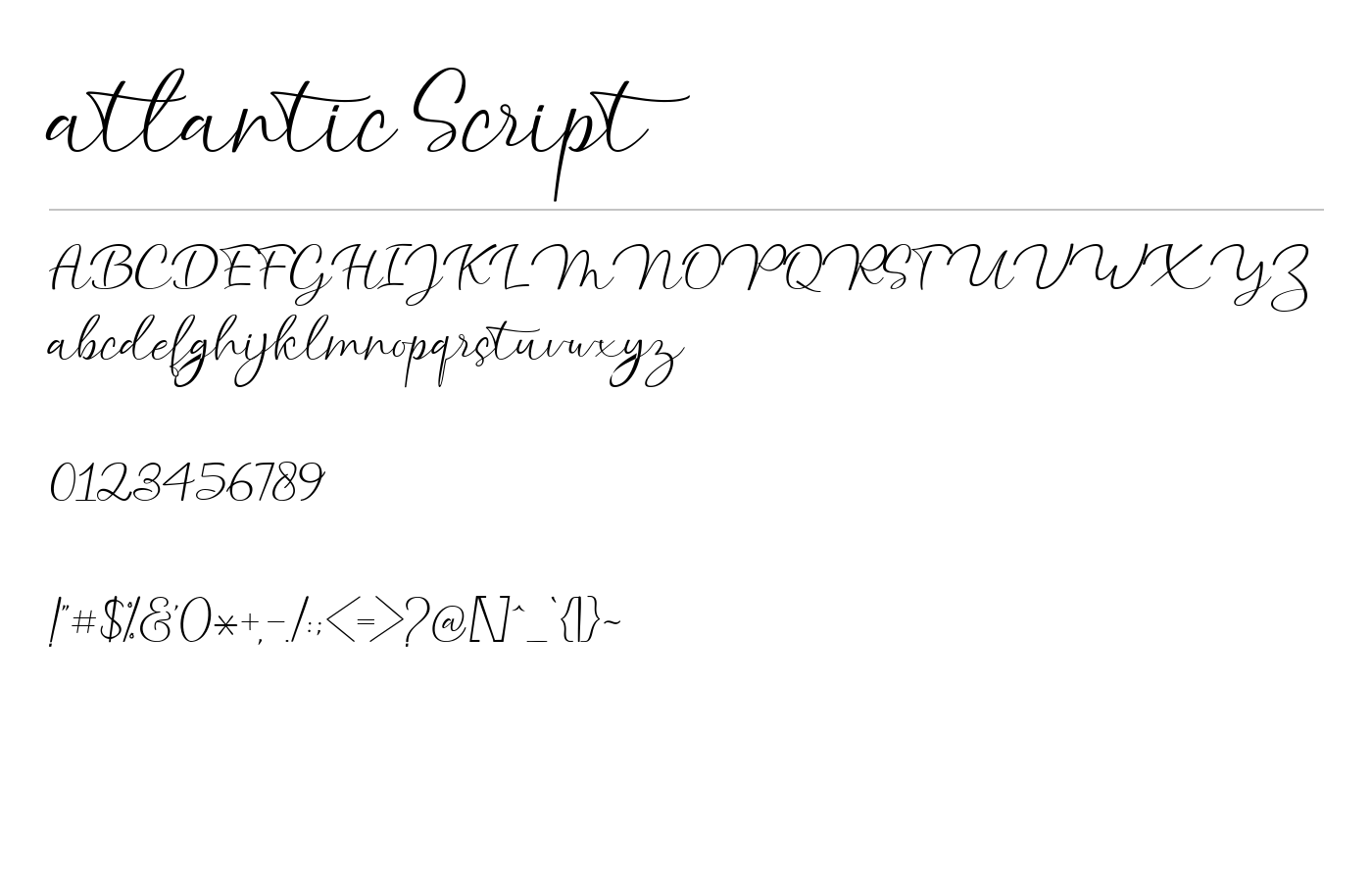
Atlantic Script is an elegant, thin script font featuring delicate, flowing letterforms with graceful swashes that evoke a sense of sophistication and charm. Its light weight and tall, airy characters make it perfect for luxury branding, wedding invitations, and refined editorial accents where a handwritten, stylish touch is desired. This font works beautifully in headlines and decorative uses, adding a personal yet polished feel to any design.
atlantic Script Font
About atlantic Script Font
| Font family | atlantic Script Font |
| Designer | Akifatype Studio |